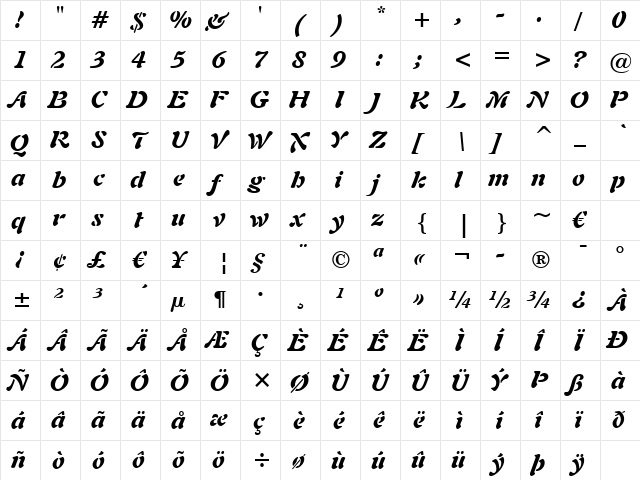
Freefrm721 Blk BT Black Italic Font Preview
Freefrm721 Blk BT Black Italic
Design Context for Freefrm721 Blk BT Typeface
Freefrm721 Blk BT takes a measured approach to typography — its balanced proportions and neutral character make it a reliable workhorse for both digital and print work. The slanted form adds forward momentum and visual energy.
Pro Tip: Try Freefrm721 Blk BT for annotation and caption copy alongside an upright companion — the contrast in angle creates a dynamic but ordered typographic system.